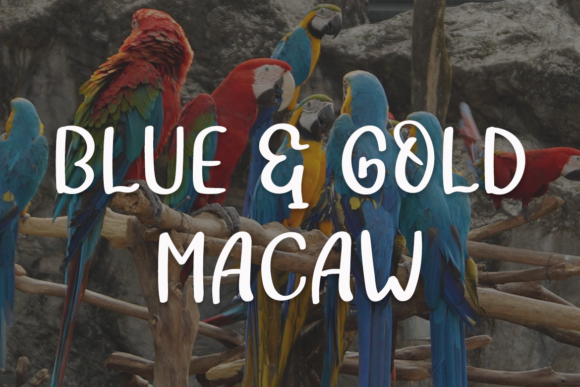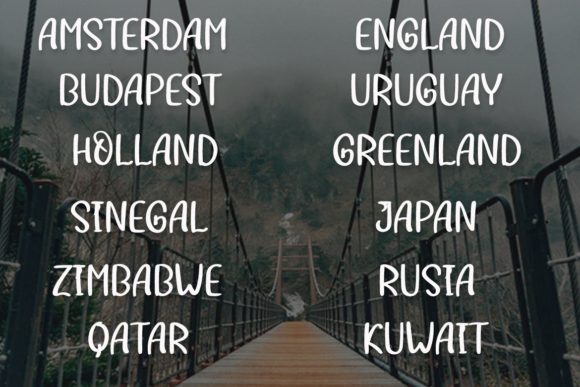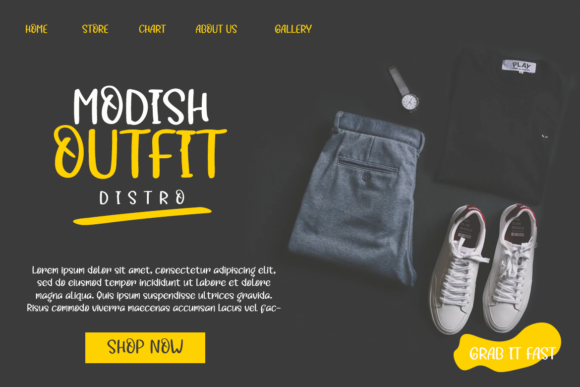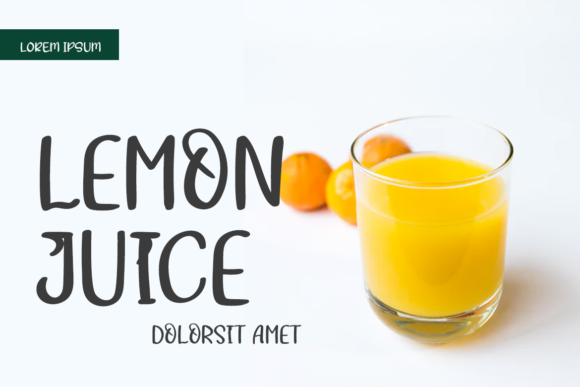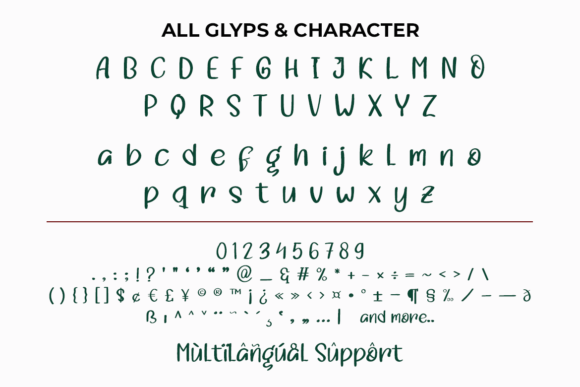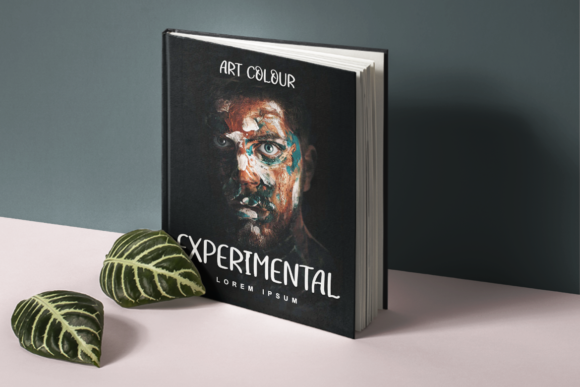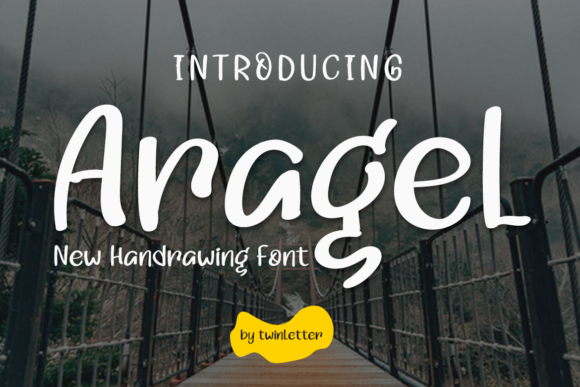
Aragel Font: The Bold and Quirky Display Font You Need
In the world of typography, a good font can make all the difference in bringing your creative ideas to life. If you’re a designer or crafter looking for a unique and eye-catching display font, look no further than Aragel. This bold and incredibly quirky font is sure to make your designs stand out from the crowd.
What is Aragel Font?
Aragel is a display font that boasts a bold and distinctive style. Its unique characteristics make it perfect for adding a touch of personality to your designs. Whether you’re working on a logo, poster, or social media graphic, Aragel is sure to turn heads.
Key Features of Aragel Font
- Bold and Eye-Catching: Aragel is a bold font that demands attention. Its thick lines and sturdy structure make it perfect for headlines, titles, and other display text.
- Quirky and Unique: Aragel has a quirky charm that sets it apart from more traditional fonts. Its unusual letterforms and irregularities add a touch of whimsy to your designs.
- Versatile: Despite its bold and quirky nature, Aragel is surprisingly versatile. It can be used in a wide range of designs, from playful and fun to serious and professional.
How to Use Aragel Font in Your Designs
So, how can you use Aragel to take your designs to the next level? Here are a few ideas to get you started:
- Headlines and Titles: Aragel is perfect for headlines and titles, where its bold and eye-catching style can really shine.
- Logos and Branding: The unique and quirky nature of Aragel makes it a great choice for logos and branding. It can help your business stand out and establish a memorable identity.
- Social Media Graphics: Aragel can add a touch of personality to your social media graphics, making them more engaging and shareable.
- Posters and Flyers: Whether you’re promoting an event, product, or service, Aragel can help your poster or flyer grab attention and stand out.
Tips for Pairing Aragel with Other Fonts
While Aragel is a bold and eye-catching font, it can be even more effective when paired with other fonts. Here are a few tips for pairing Aragel with other fonts:
- Contrast with a Serif Font: Pairing Aragel with a serif font can create a nice contrast and add visual interest to your design.
- Match with a Script Font: If you want to add a touch of elegance and sophistication to your design, try pairing Aragel with a script font.
- Use a Sans-Serif Font for Body Text: For body text, it’s best to use a clear and easy-to-read sans-serif font. This will provide a nice contrast to the bold and quirky style of Aragel.
In conclusion, Aragel is a bold and incredibly unique display font that’s perfect for designers and crafters looking to add a touch of personality to their designs. Its quirky and eye-catching style makes it perfect for headlines, titles, logos, and other display text. With its versatility and wide range of uses, Aragel is sure to become a go-to font in your design arsenal.